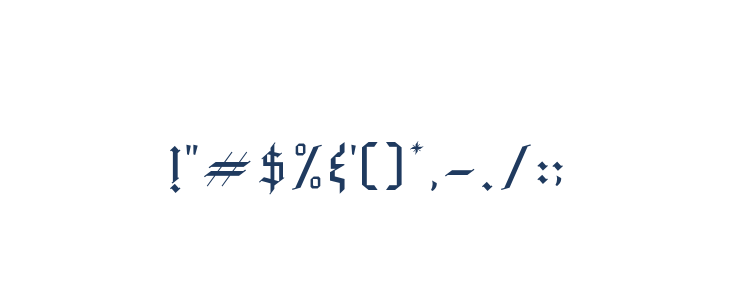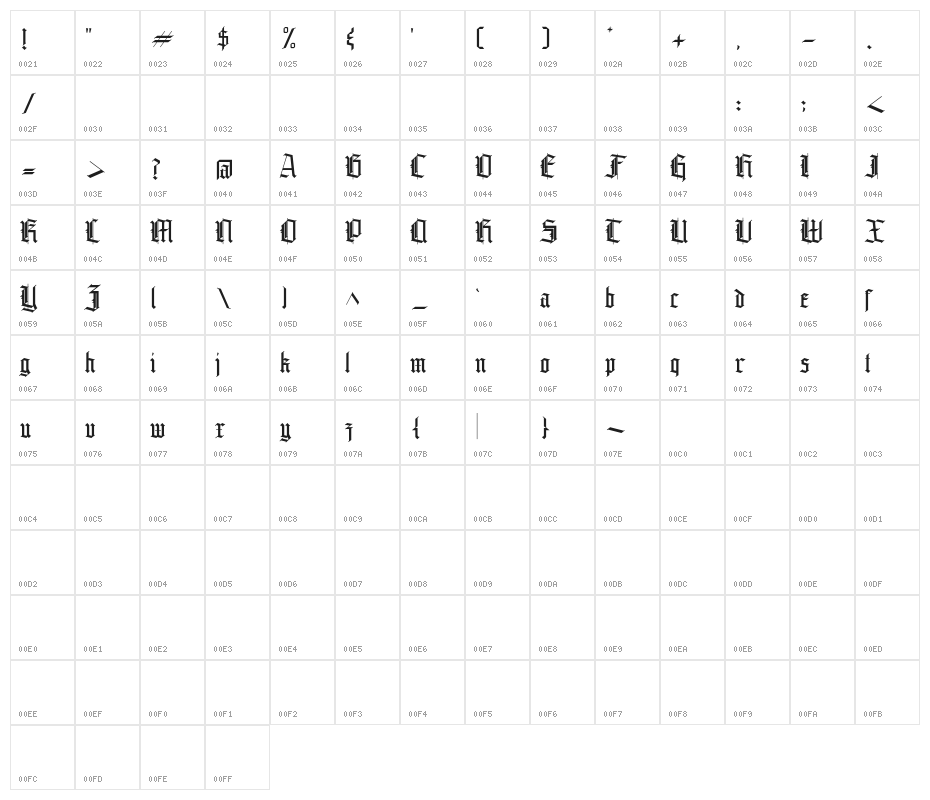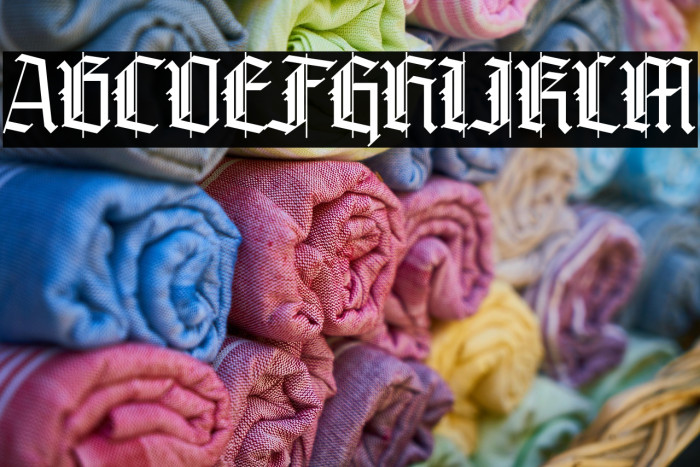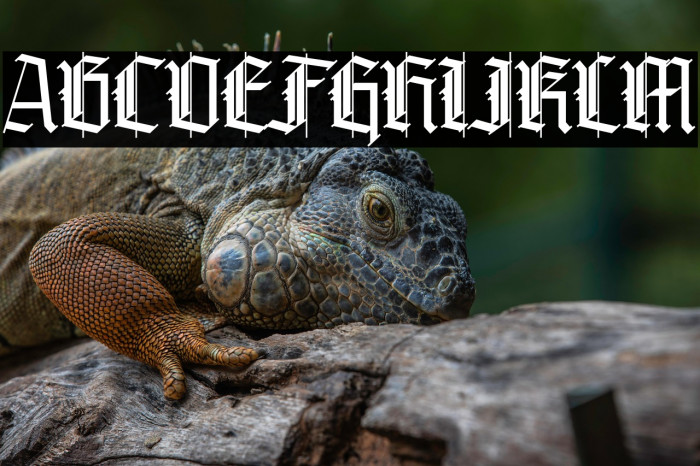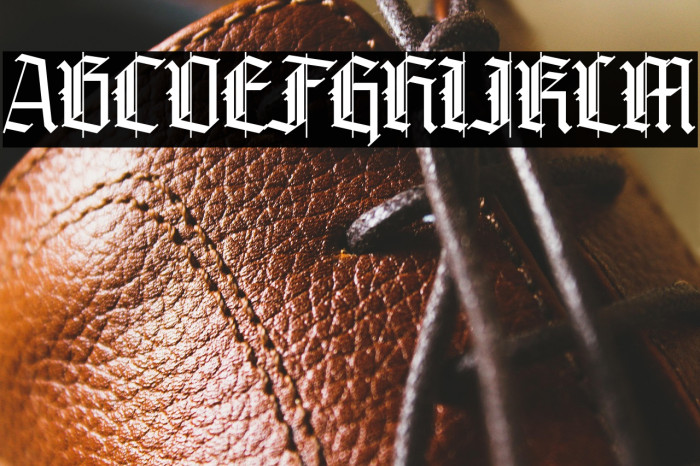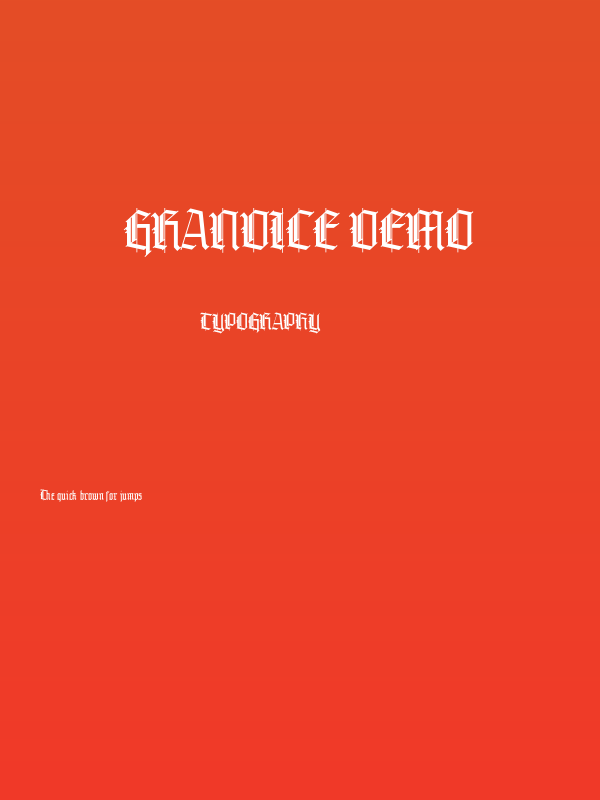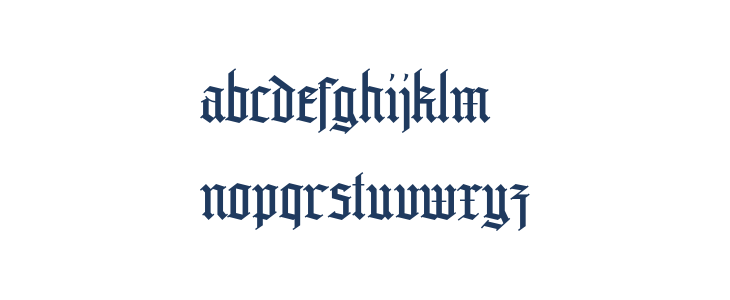
Grandice DEMO Font
Grandice DEMO Description
This font features a bold and intricate design reminiscent of traditional blackletter styles. The characters are sharply angular with a strong vertical emphasis, creating a dramatic and authoritative appearance. The uppercase letters are particularly ornate, with elaborate serifs and decorative elements that enhance their gothic aesthetic. The lowercase letters maintain the same stylistic elements but with a slightly more subdued flair, allowing for better readability. The numerals and special characters are consistent with the overall theme, offering a cohesive look across all glyphs. This font is ideal for projects that require a historical or medieval touch, such as themed event invitations, logos for vintage brands, or artistic posters.
| Use Case | Logos, Headlines, Decorative |
| Proposed Projects | Ideal for themed event invitations, vintage brand logos, or artistic posters requiring a historical touch. |